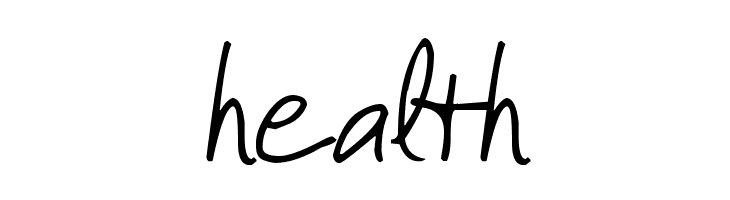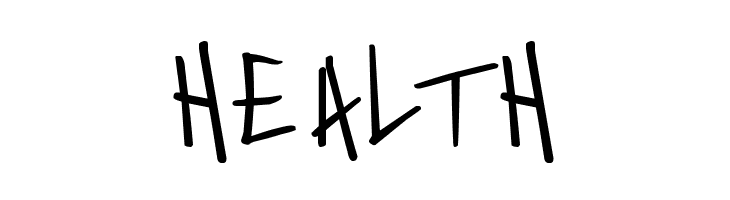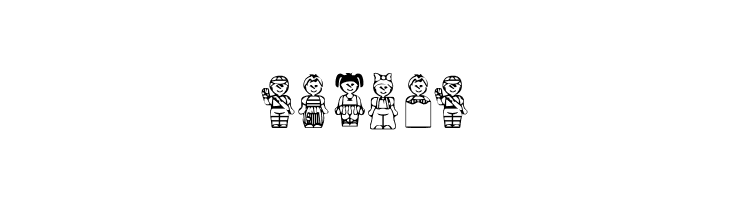
( Fonts by www.junkohanhero.com )
A bold, hand-drawn font with a raw, artistic style.
( Fonts by Tn2 - TOM )
An expressive, artistic font with a splattered ink appearance and cursive connections.
( Fonts by SDFonts - Ritzy )
A dynamic, edgy handwritten font with irregular strokes and a chaotic appearance.
( Fonts by Kimberly Geswein - kimberlygeswein.com )
A casual, handwritten font with a playful and informal style.
( Fonts by Rodrigo German - RASDESIGN )
A bold, expressive handwritten font with dynamic strokes and unique embellishments.
( Fonts by SDFonts - Ritzy )
Primitive, pictograph-style font with hand-drawn, irregular shapes.
( Fonts by Loraine Wauer Ferus www.billybear4kids.com )
A playful, cartoon-style font with children holding letter blocks.